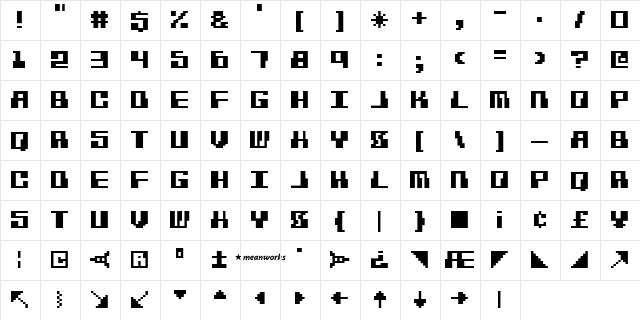
Hacker Regular Font Preview
Hacker Regular
Hacker Regular Font Details
Design Context for Hacker Typeface
Hacker is a composed and adaptable typeface that performs quietly and consistently across a wide range of design contexts.